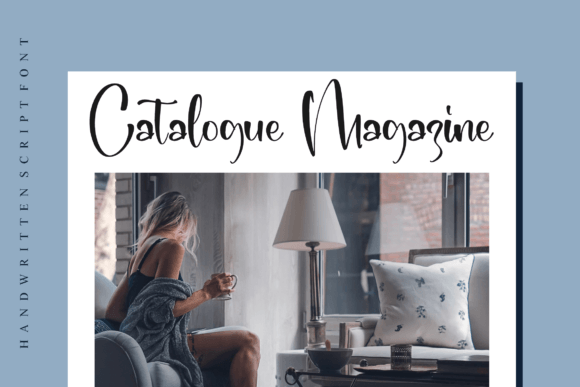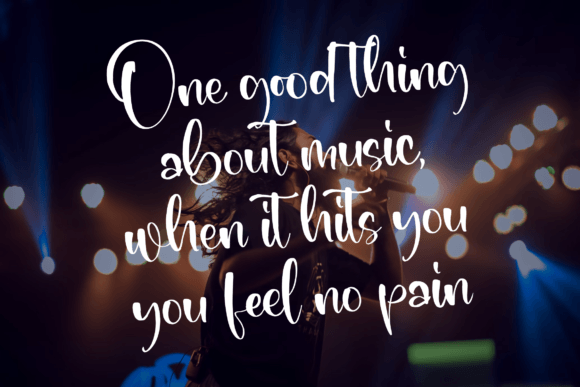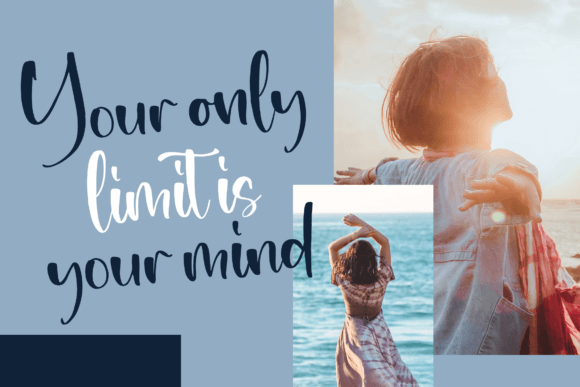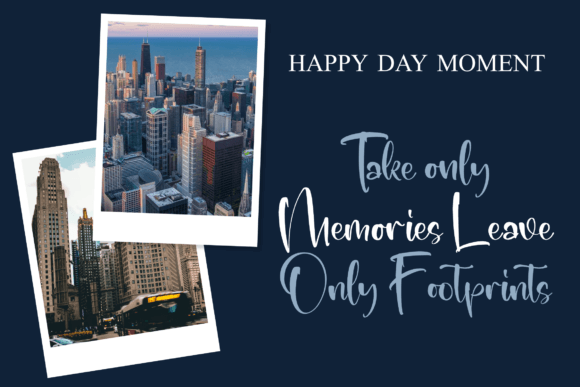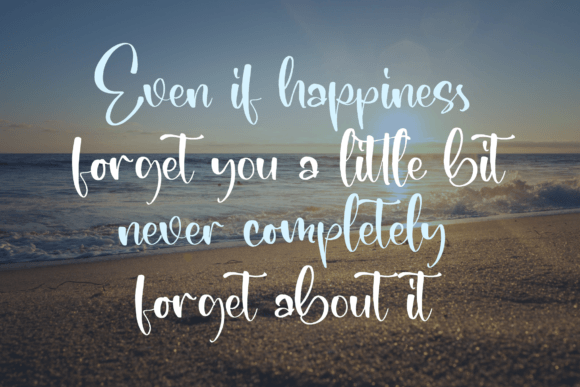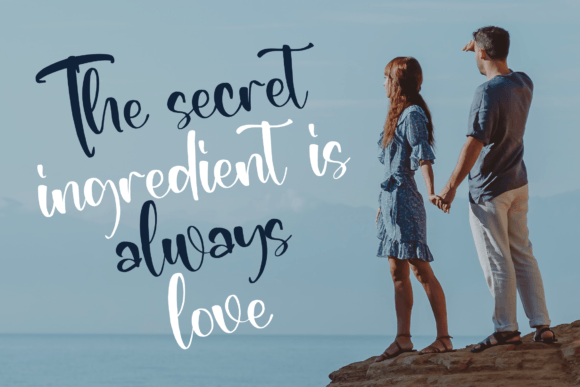
Introduction to Daily Plann Font
Daily Plann is an amazing handwritten font suitable for logos, branding projects, homeware designs, product packaging, mugs, quotes, posters, shopping bags, T-shirts, book covers, name cards, invitation cards, greeting cards, labels, photography, watermark, special events, and all your other lovely projects that need a beautiful touch.
Key Features of Daily Plann Font